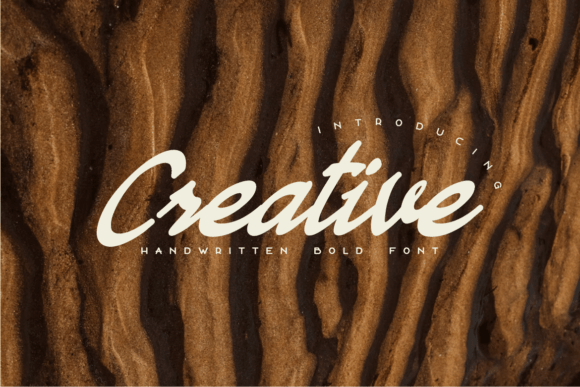
The Designer’s Delight: Castrolina Font
I still remember the time I was working on a fashion brand’s logo project, and I was struggling to find the perfect font. The client wanted something elegant, modern, and bold, but also handwritten and unique. After hours of searching, I stumbled upon Castrolina Font, and it was love at first sight! 💕 In this article, I’ll share my experience with this beautiful font, its features, and how to make the most of it in your designs.
- ✨ Elegant and modern bold handwritten style, perfect for fashion and apparel designs
- 💫 Beautifully crafted with attention to detail, making it perfect for logos, branding, and signatures
- 🎨 Versatile and can be used for various projects, including magazines, social media, and advertisements
While Castrolina Font is an excellent choice, there are a few things to keep in mind:
- 🤔 Some characters may not work well in all contexts, so it’s essential to test the font thoroughly
- ⚠️ The font may not be suitable for body text or long paragraphs, as it’s designed for headlines and titles
- Experiment with OpenType features, such as ligatures and stylistic alternates, to add more personality to your design
The Designer Inspiration Behind Castrolina Font
Castrolina Font was designed with the goal of creating a beautiful, modern handwritten font that would be perfect for fashion and apparel designs. The designer aimed to craft a font that would be both elegant and bold, with a unique personality that would stand out in any design.
| Font Name | Castrolina Font |
| Author | ponuppo |
| What is Castrolina Font best used for? | Castrolina Font is perfect for fashion, apparel, signatures, album covers, logos, branding, magazines, social media, and advertisements. |
| Is Castrolina Font suitable for body text? | No, Castrolina Font is designed for headlines and titles, and may not be suitable for body text or long paragraphs. |
| Is Castrolina Font available in different weights or styles? | Castrolina Font comes in a single weight, but it has a range of OpenType features, including ligatures and stylistic alternates, that can help add variety to your design. |